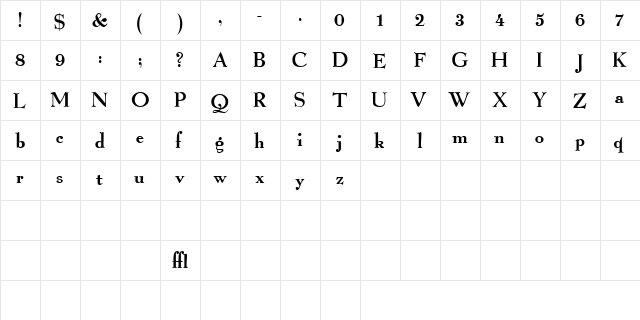
CaribeSSK Regular
Design Context for CaribeSSK Typeface
CaribeSSK is a composed and adaptable typeface that performs quietly and consistently across a wide range of design contexts.